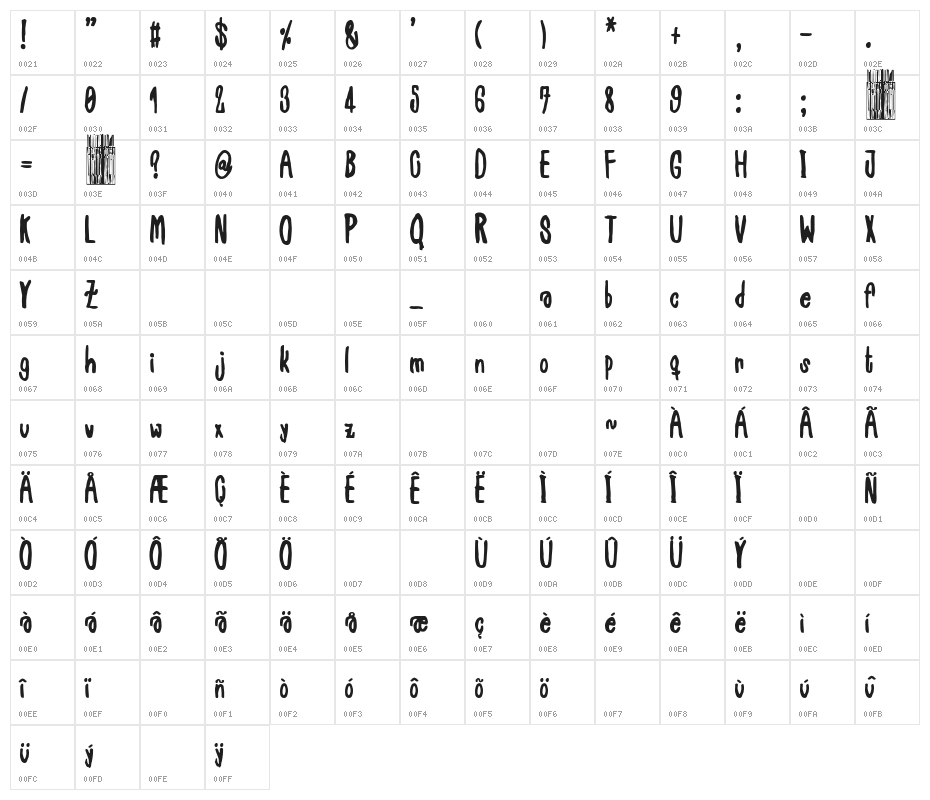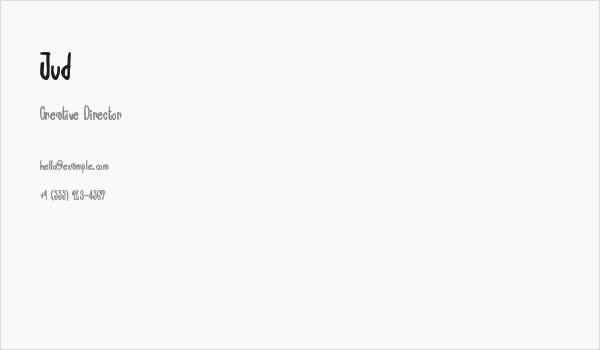
Jud Font
Jud Description
A playful, hand-drawn sans-serif font with irregular, organic strokes and a casual, informal appearance. The characters are tall and narrow with varying stroke thickness, giving a lively and expressive feel.
| Overall Style | Playful, Casual, Decorative |
| Use Case | Headlines, Posters, Logos, Informal branding |
| Proposed Projects | ChildrenΓ’β¬β’s books, posters, greeting cards, branding for creative businesses, social media graphics. |